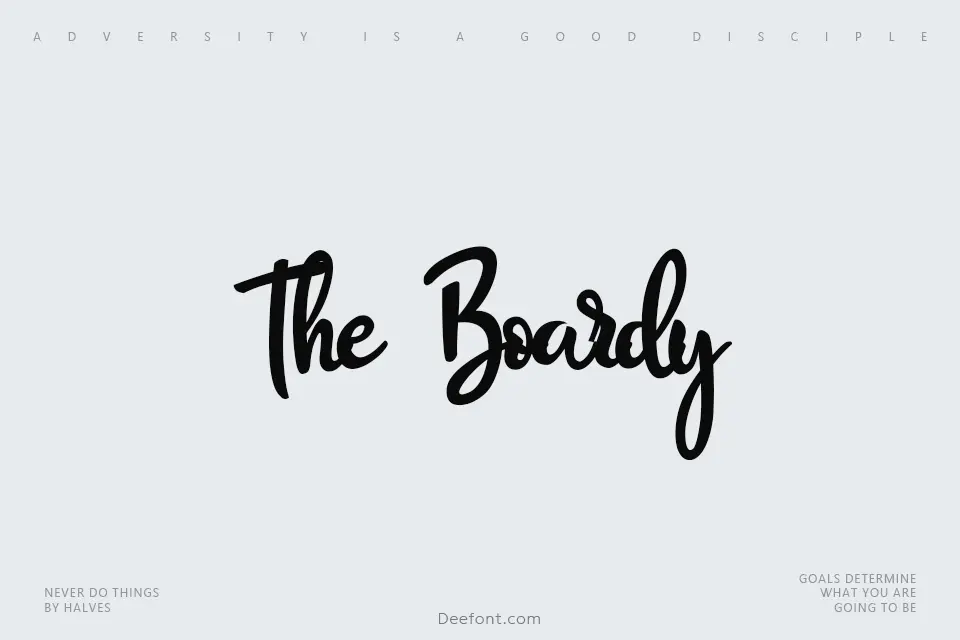
The Boardy Font
The Boardy Font is a flowing handwritten font, described by an elegant touch, perfect for your favorite projects. Fall in love with its incredibly distinct and timeless style and use it to create spectacular designs!